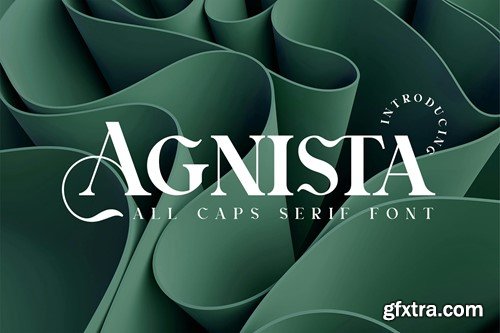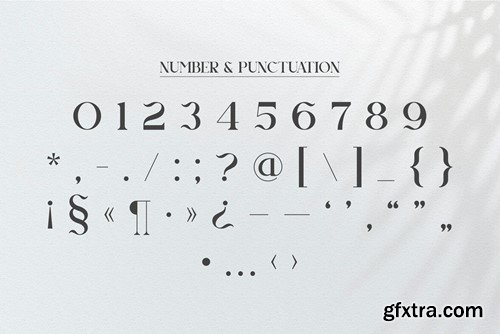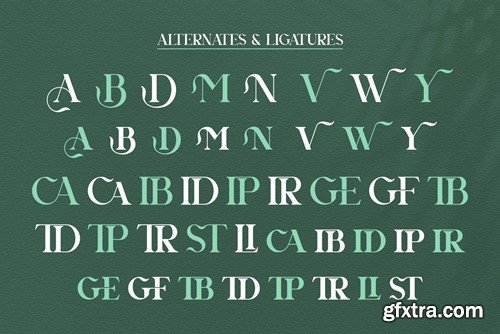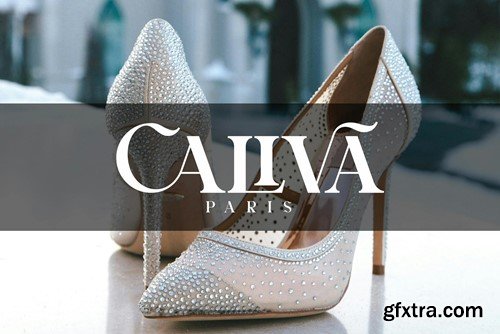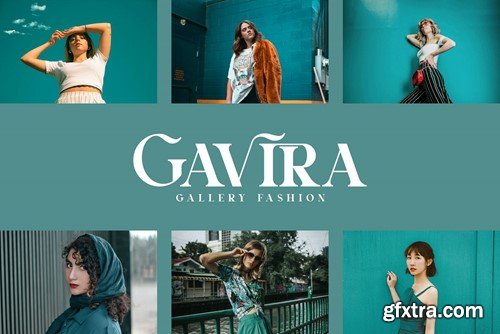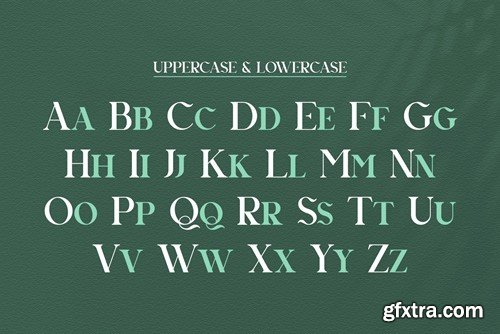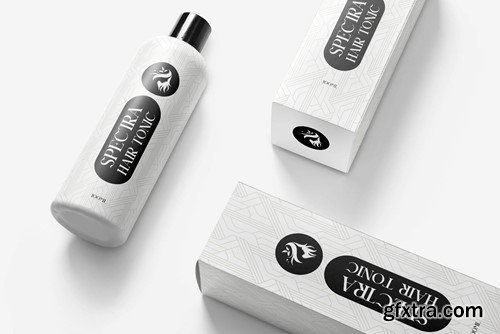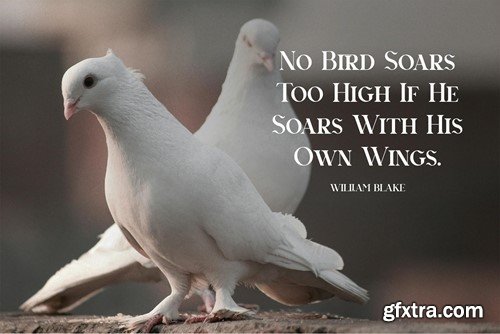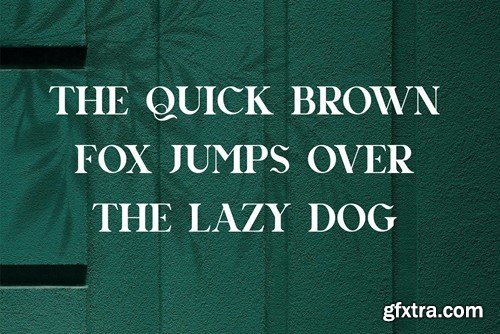
Agnista All Caps Serif Font
Agnista Serif is a balanced, smooth, elegant and stylish serif font. He has a beautiful character. It fits perfectly with invitation card designs, company logos, movie titles, movie names, business cards, book titles, brand names and various other designs. Agnista Serif is a subtle serif font that exudes sophistication and elegance. Its stylish alternations and ligatures make this font the perfect partner for any project.
• Ligature
• Uppercase and lowercase
• Numbering and Punctuation